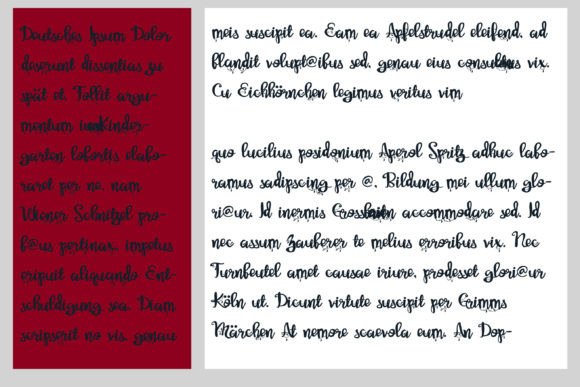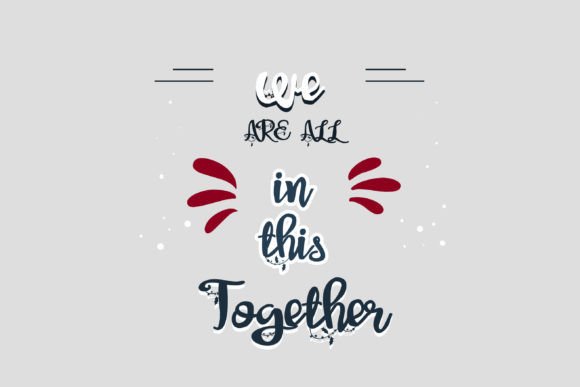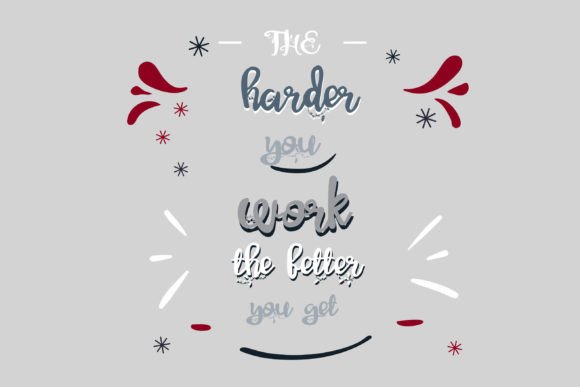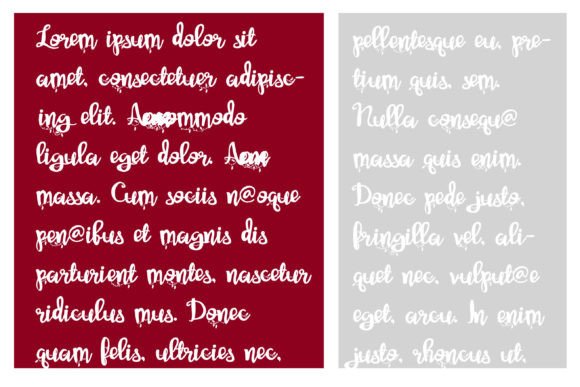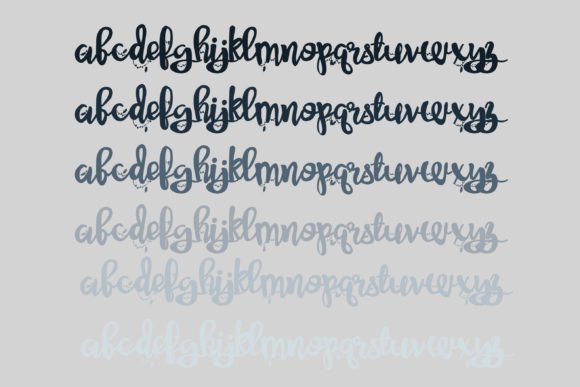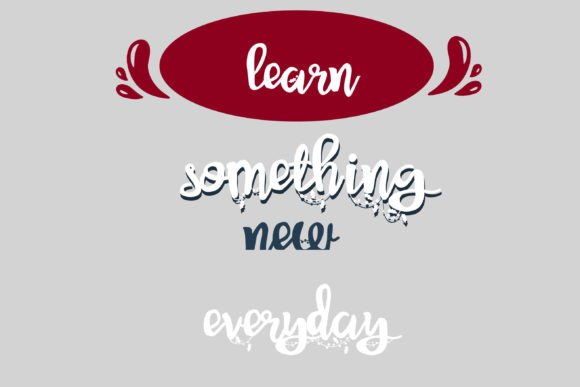
Deck the Halls with Holiday Cheer
As the holiday season approaches, designers are buzzing with excitement to create festive and fun designs that capture the magic of Christmas. And what better way to get into the holiday spirit than with a typeface that embodies the very essence of the season? For me, it all started when I stumbled upon a quirky little font that instantly put a smile on my face – the Holiday Berry Font.
This delightful hand-written script font is adorned with holly flourishes that add a touch of whimsy and playfulness to any design. With its cheerful vibe, Holiday Berry Font is perfect for all your Christmas-themed projects, from greeting cards to social media posts, and everything in between. Whether you’re a seasoned designer or a creative enthusiast, this font is sure to bring a spark of joy to your work.
So why is the Holiday Berry Font so valuable to designers? For one, it’s a unique and eye-catching way to add a personal touch to your designs. Plus, its versatility makes it a great choice for a wide range of projects, from digital to print. And let’s be honest – who wouldn’t want to add a little bit of holiday magic to their work?
Holiday Berry Font Key Features
- Unique Characteristics: Holiday Berry Font features a unique, hand-drawn design with a festive and playful feel, perfect for creating eye-catching holiday graphics and designs.
Designer Review: Holiday Berry Font
Overall, I’d say the Holiday Berry Font is a charming addition to any holiday-themed project. ✨ Its playful, whimsical feel instantly evokes the spirit of the season, making it perfect for cards, posters, or even website headers.
- The font’s intricate details and flourishes are beautifully crafted, adding a level of sophistication to what could otherwise be a kitschy design element.
- I appreciate the variety of font weights and styles, allowing for a range of visual effects from delicate to bold.
- The font’s color palette is also quite versatile, lending itself to a range of hues from traditional red and green to more modern pastels.
However, there are a few limitations to consider: ⚠️ The font’s complexity may make it difficult to read at very small sizes, and the level of detail can sometimes make it hard to achieve crisp, clean lines.
Despite these minor drawbacks, I think the Holiday Berry Font is a fantastic choice for designers looking to add some holiday cheer to their projects. Its unique blend of playfulness and sophistication makes it a great asset for anyone looking to create visually appealing and festive designs.
Tips for Getting the Most Out of Holiday Berry Font
For best results, use the Holiday Berry Font in designs related to winter, holidays, or festive themes.
Pair the font with bold, bright colors to create a festive look.
Use the font in combination with other winter-themed elements, such as snowflakes, holly, or Christmas trees.
The Holiday Berry Font is perfect for:
Creating holiday cards and invitations.
Designing festive social media graphics.
Developing winter-themed website headers and logos.